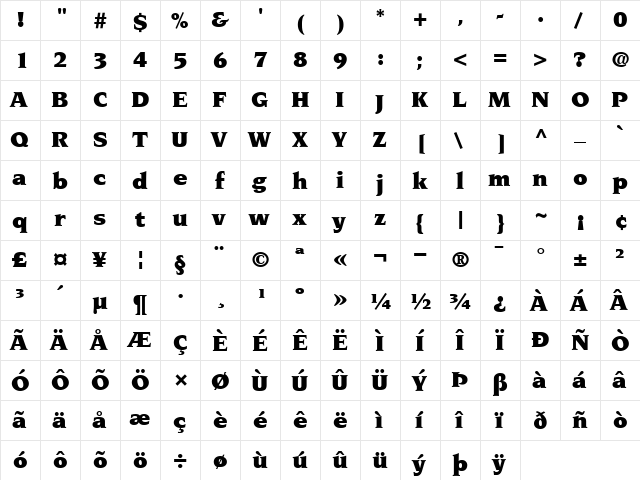
ITCNovarese-Ultra Ultra Font Preview
ITCNovarese-Ultra Ultra
ITCNovarese-Ultra Ultra Font Details
Design Context for ITCNovarese-Ultra Typeface
ITCNovarese-Ultra takes a measured approach to typography — its balanced proportions and neutral character make it a reliable workhorse for both digital and print work.